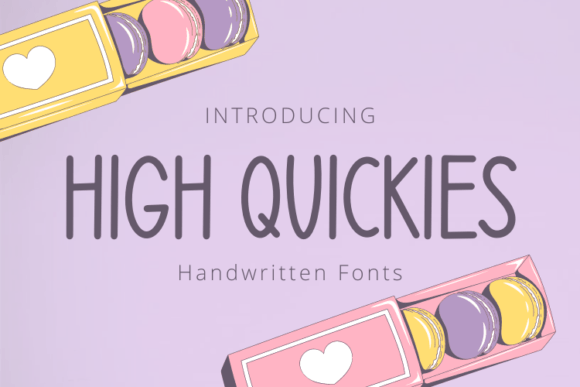
Looking for the perfect font to add a touch of creativity and personality to your projects? Look no further than High Quickies Font! This amazing script font is not just your ordinary typeface – it's a fun and quirky handwritten font that will bring your ideas to life like never before.
Created by FOLV, a renowned design studio known for their exceptional fonts, High Quickies Font is the ultimate choice for anyone seeking a unique and eye-catching style. Whether you're designing a logo, crafting invitations, or simply adding some flair to your social media posts, this font is guaranteed to make a lasting impression.
With its captivating and playful design, High Quickies Font is the perfect companion for all your creative endeavors. Its handwritten appearance instantly adds a personal touch and creates a sense of authenticity that will captivate your audience. Say goodbye to mundane and boring fonts, and say hello to a world of endless possibilities!
But what makes High Quickies Font truly exceptional is its versatility. It's not just another font – it's the best font for handwritten quality. Its intricate details and smooth curves make every letter a work of art. Each stroke is carefully crafted to ensure a seamless flow, allowing you to create stunning designs effortlessly.
Embrace your imagination and let High Quickies Font take your projects to new heights. Whether you're aiming for a whimsical and playful vibe or a charming and elegant aesthetic, this font has got you covered. Its wide range of applications is only limited by your creativity.